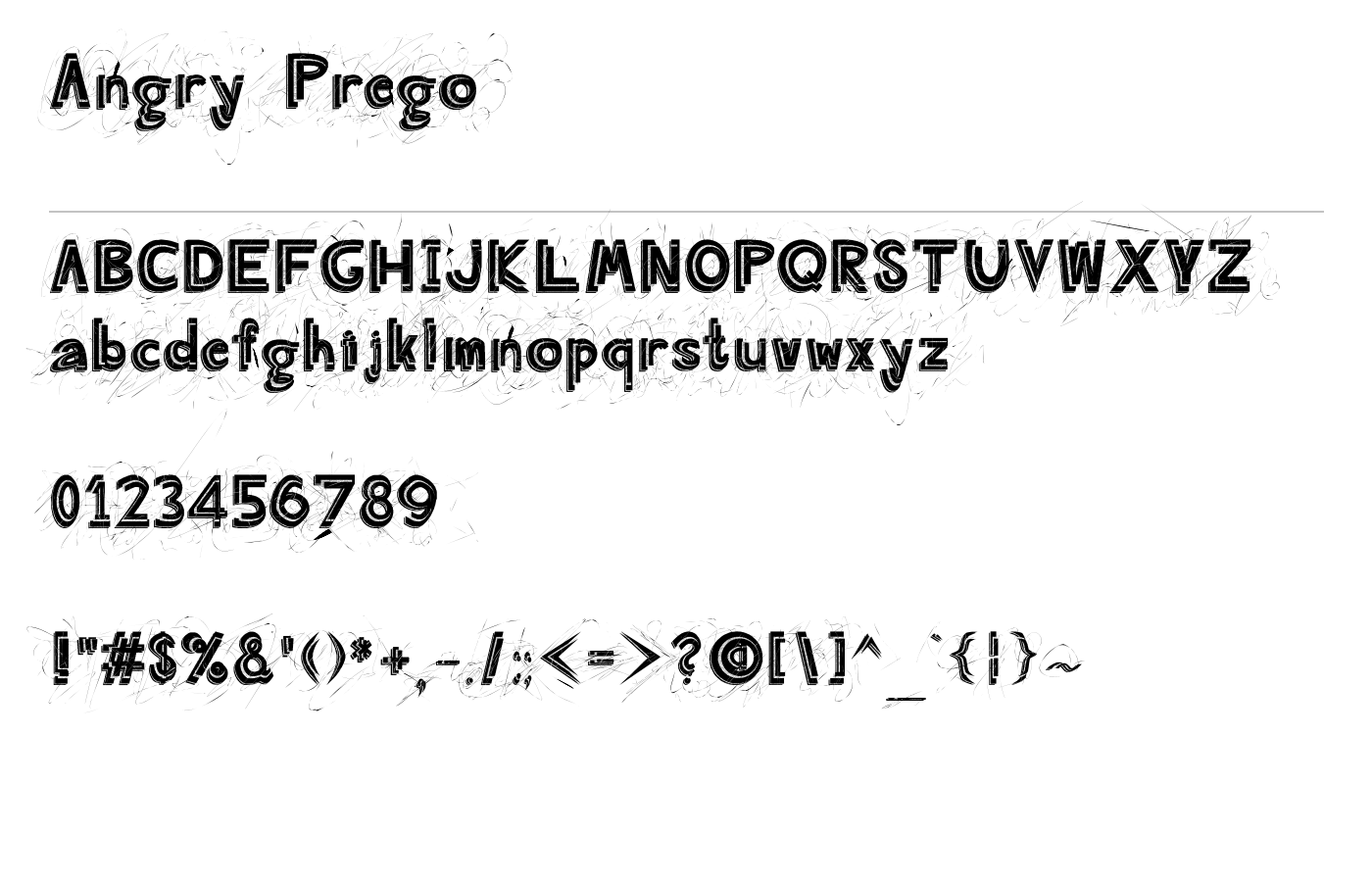
Angry Prego is a bold sans serif font with a lively, sketch-like outline that gives it a playful yet edgy personality. Its strong, slightly condensed letterforms feature a hand-drawn style with slightly irregular strokes, making it perfect for expressive, eye-catching headlines and creative branding. This font works well in posters, logos, and graphic projects where a fun, energetic vibe is desired.
Angry Prego Font
About Angry Prego Font
| Font family | Angry Prego Font |
| Designer | Vered Gilad Friedman |